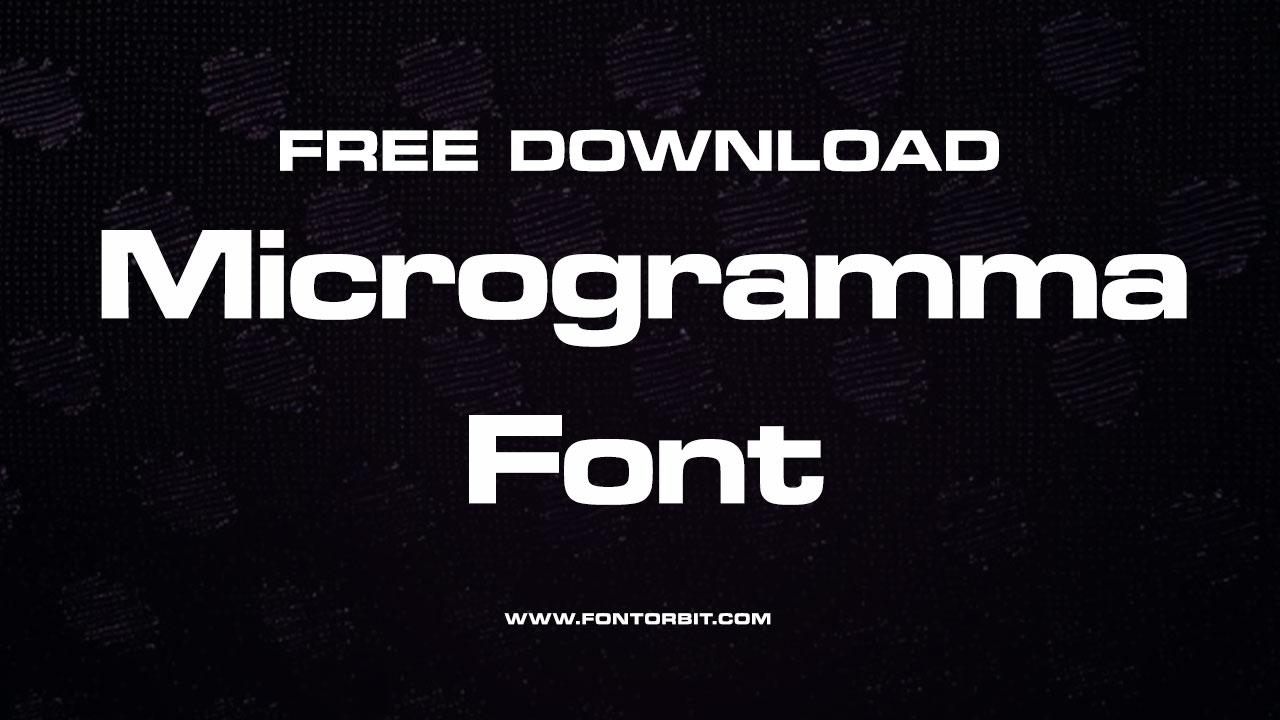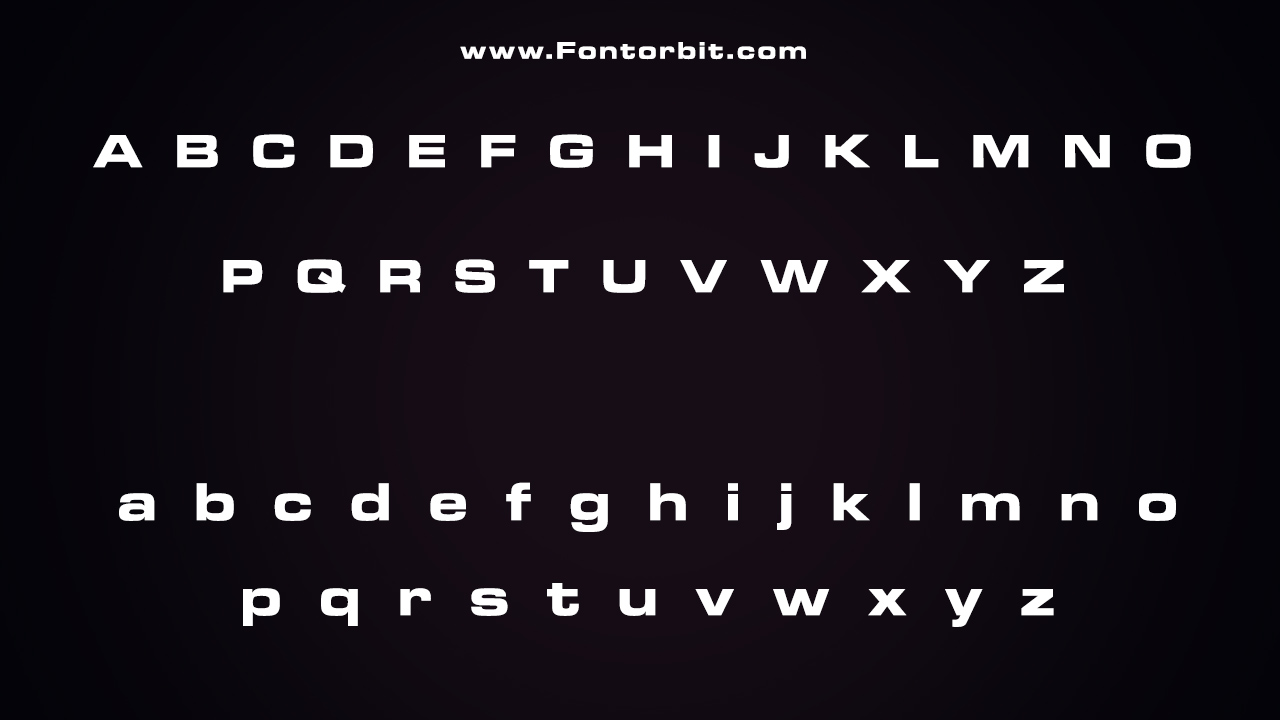
Microgramma Font is a classic sans-serif typeface designed by Aldo Novarese and Alessandro Butti. It features a sleek, modern design with uppercase and lowercase letters, numerals, and various special characters.
Its clean lines and geometric shapes make it versatile for various design projects. Applying this font to your projects can yield excellent results thanks to its high readability and professional aesthetic.
The Microgramma Font Family Includes
- Microgramma Com Bold Extended
- Microgramma Com Medium Extended
Microgramma Font belongs to the sans-serif family and has a contemporary, clean design. It includes a wide range of glyphs and symbols that contribute to its functional yet stylish appearance. Ideal for both personal and professional projects, this font is known for its pairing nature, allowing it to work seamlessly with other fonts.
Microgramma Font Found In Use
- Catalogs
- Banners
- Billboards
- Game interfaces
- Retargeting ads
- Email marketing templates
Microgramma Font is widely used in branding, signage, game interfaces, and even movie posters due to its timeless design. It adds a professional and sleek touch to designs, making it a favorite for projects requiring a formal yet modern look.
1.What Is Microgramma Font?
Microgramma is a geometric sans-serif typeface featuring clean lines and a contemporary design. It includes both uppercase and lowercase letters, numerals, and special characters.
3.Why Is Microgramma Font Popular For Branding?
Microgramma’s sleek, modern design and high readability make it a popular choice for branding. Its geometric shapes give it a professional look that suits various corporate and creative projects.
4.What Are The Font Metrics Of Microgramma Font?
Microgramma Font includes precise metrics like kerning pairs, line height, and character width, optimized for a clean and structured appearance.
7.What Are The Design Principles Behind Microgramma Font?
Microgramma Font’s design is based on clean, geometric lines, and balanced proportions, creating a contemporary yet timeless aesthetic. Its simplicity allows for versatility across various media and design projects.